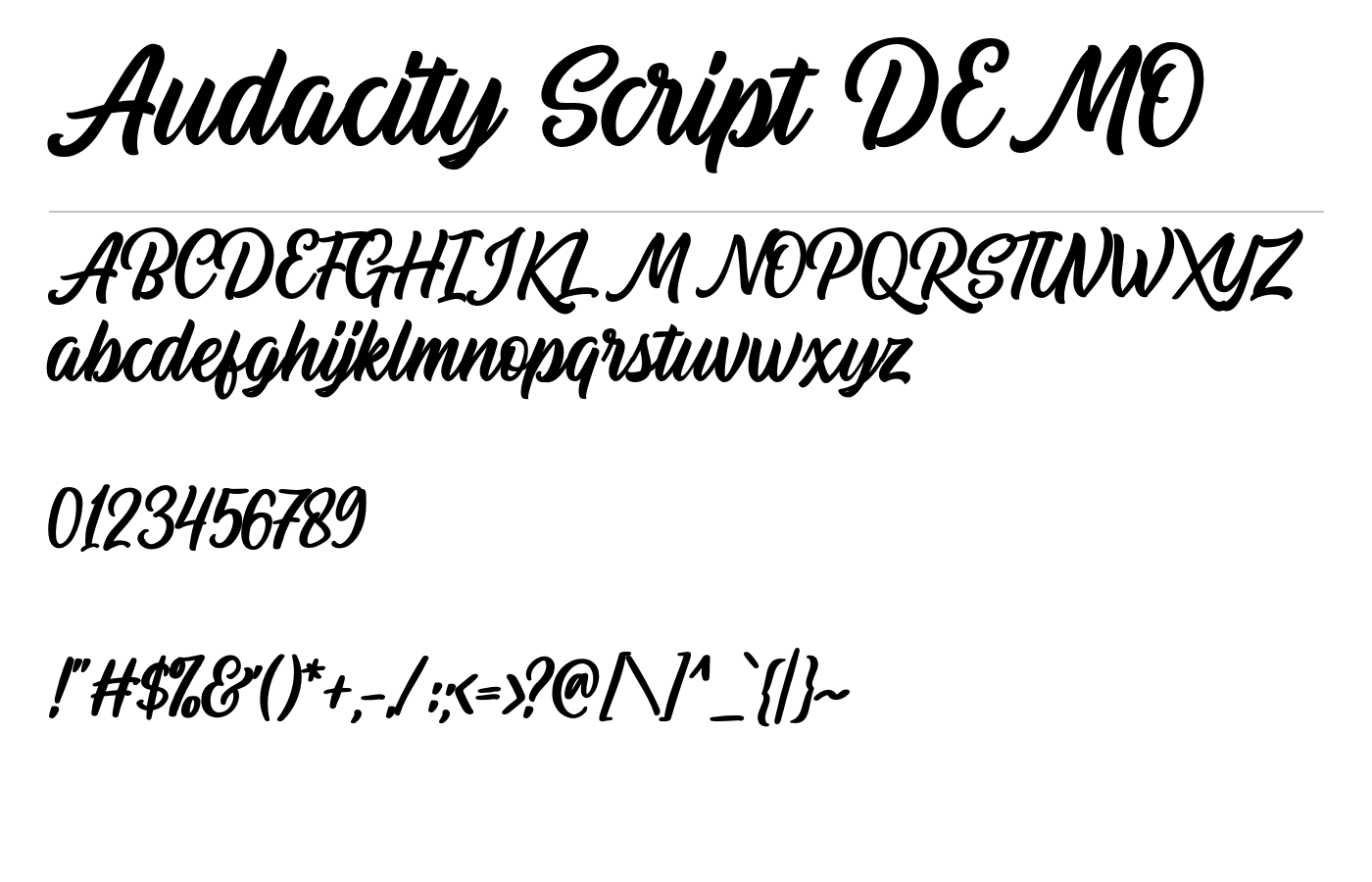
Audacity Script DEMO is a lively and elegant script font featuring smooth, flowing strokes with moderate contrast and a slight slant, giving it an energetic yet refined feel. Its balanced weight and clear letterforms make it perfect for stylish branding, invitations, and headlines where a personal, handwritten touch is desired. This font works well in creative and fashion contexts, adding a sophisticated and approachable character to any design.
Audacity Script DEMO Font
About Audacity Script DEMO Font
| Font family | Audacity Script DEMO Font |
| Designer | Sarid Ezra |